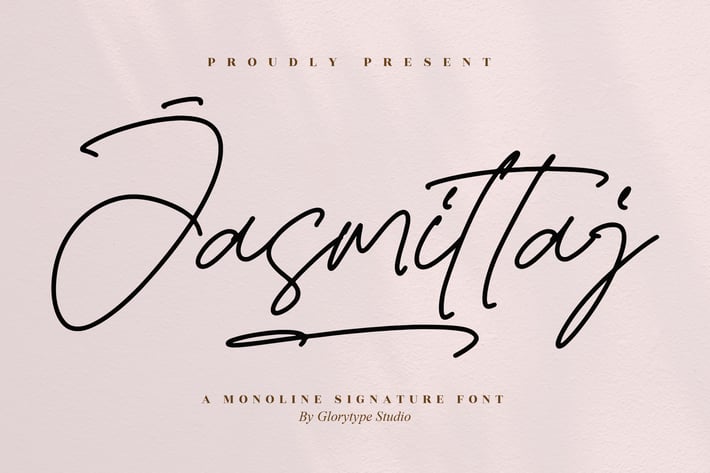
Jasmittaj Monoline Signature Font
Jasmittag Monoline Signature Font delivers a refined handwritten signature look, blending smooth monoline strokes with a stylish modern aesthetic. Designed to elevate branding, social media visuals, editorial graphics, and elegant personal projects, this font adds a premium, handwritten charm that feels timeless and effortlessly sophisticated.
Clean monoline signature style
Elegant, natural handwriting flow
Smooth stroke consistency
Modern and minimalist character design
High-quality, professional finish
Create signature-worthy visuals with a monoline font that speaks elegance in every stroke.